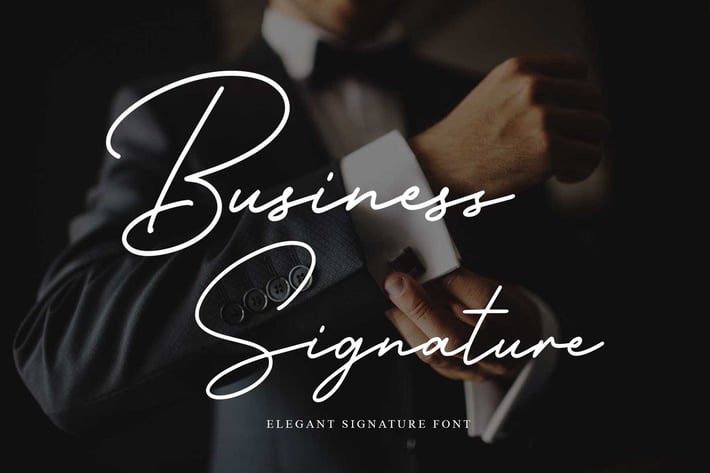
Business Signature - Elegant Corporate Font
Business Signature Font
a classy, contemporary of script font, inspired by Elegant & Classy,
Business Signature offers beautiful typographic harmony for a diversity of design projects, including logos & branding, social media posts, advertisements & product designs.